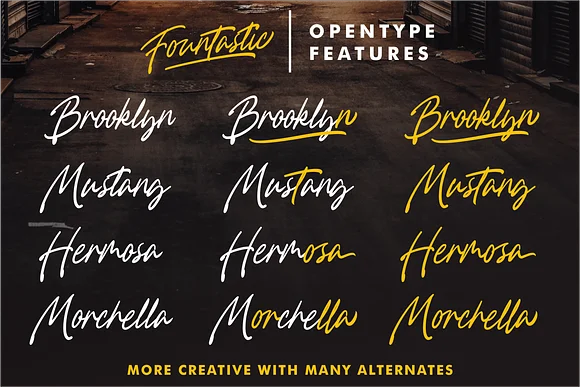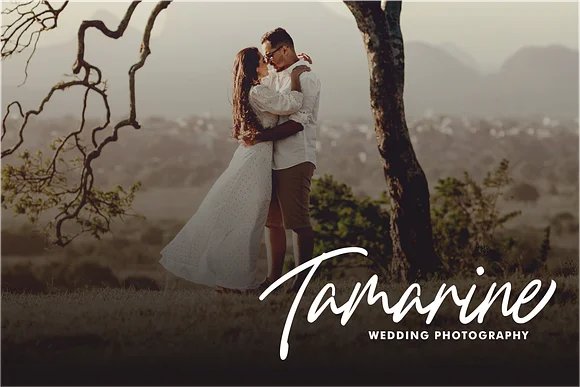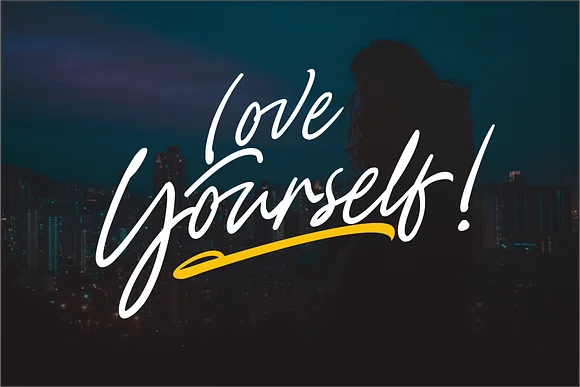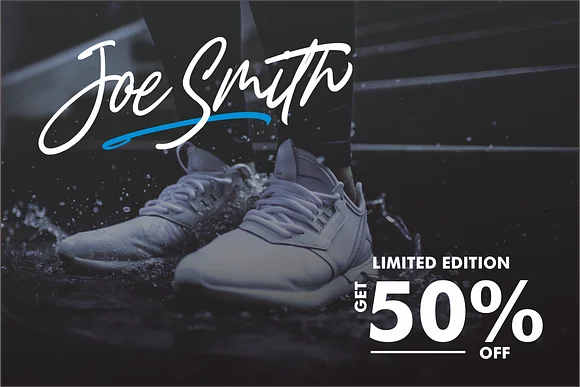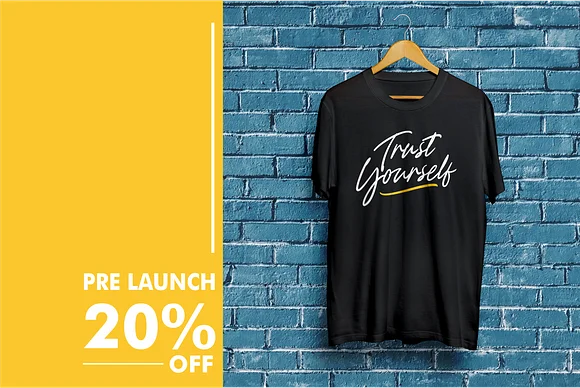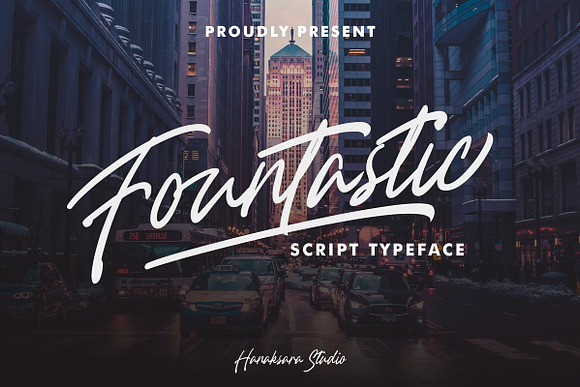
Fountastic Script
Typography shapes perception at a subconscious level. Fountastic Script leverages strong typographic hierarchy support to make every composition feel considered. The typeface brings an elegant, calligraphic sensibility to a broad range of creative disciplines, with optical balance across all weights that holds up whether the work is print-first or screen-first.
In practice, Fountastic Script proves particularly effective for high-end cosmetic packaging, event signage, web design, greeting cards, luxury stationery. Designers reaching for it find that the type decisions feel resolved rather than laboured — a useful quality when client timelines are tight.
The range of applications extends to perfume labels, environmental graphics, signage systems, social media graphics. That breadth is deliberate: the proportions and spacing were stress-tested across a wide range of mock briefs before the typeface was finalised.
At smaller sizes the design retains its character without becoming cluttered. This resilience across scales makes Fountastic Script equally suitable for a business card and a billboard — a useful property when assets must scale across a campaign.
Freelance designers across print and digital disciplines find Fountastic Script a reliable choice for projects that demand both personality and restraint. The design avoids the self-conscious quirkiness that dates quickly, settling instead for considered distinctiveness that holds up over time.